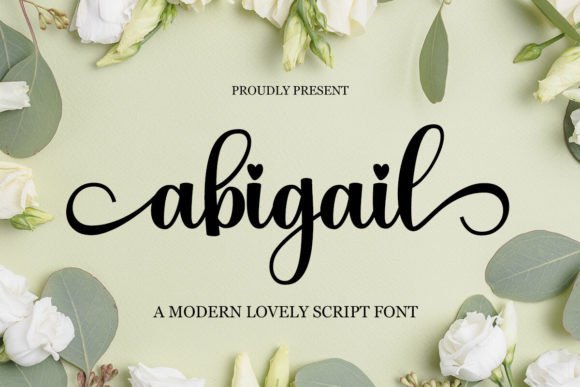
The Allure of Beautiful Handwriting
As a designer, have you ever found yourself searching for the perfect font to capture the essence of a brand or a special moment? Perhaps it was for a wedding invitation, a logo, or a book cover – whatever the project, the right font can make all the difference. I recall a particular instance where I stumbled upon a font that instantly sparked inspiration. It was a beautiful script font that seemed to dance across the page, with elegant swashes and a touch of whimsy.
That font was Abigail Script Font, a modern calligraphy design that has become a staple in many designers’ arsenals. With its casual yet sophisticated vibe, it’s perfect for a wide range of applications, from logos and product packaging to wedding invitations and branding. The Abigail Script Font is encoded with PUA Unicode, making it easy to access and use all its additional characters without requiring special software.
Abigail Script Font Key Features
- Font Family: Abigail Script, a beautiful and elegant script font
- Unique Characteristics: Features a flowing, handwritten feel with subtle connections between letters
Abigail Script Font Review
I’ve had the chance to work with Abigail Script Font, and I must say, it’s a beautiful addition to any design project. ✨ The flowing connections between letters make it perfect for creating a sense of elegance and sophistication. ✨ The subtle flair at the ends of letters adds a touch of whimsy, perfect for projects that need a bit of personality.
One of the things I appreciate about Abigail Script Font is its versatility. ✨ It’s perfect for invitations, greeting cards, and other wedding-related materials. ✨ It’s also great for creating a sense of luxury and high-end feel, making it perfect for branding and advertising projects.
- ⚠️ Abigail Script Font may not be the best choice for projects that require a lot of text, as the letter spacing can become quite tight.
- ⚠️ The font may not be the most legible at small font sizes, so it’s best to use it at larger sizes or in combination with a more legible font.
Overall, I’m impressed with Abigail Script Font. It’s a beautiful, elegant font that’s perfect for projects that need a touch of sophistication. With its versatility and unique style, it’s definitely a great addition to any designer’s toolkit.
Tips for Getting the Most Out of Abigail Script Font
To get the most out of Abigail Script Font, try the following:
- Use it for titles, headings, and other emphasis text.
- Pair it with other fonts for a unique and eye-catching design.
- Experiment with different font sizes and colors to create a visually appealing effect.
Alternatives to Abigail Script Font
Carolyna Pro is a modern script font with elegant, flowing lines. It is ideal for use in branding, packaging, and advertising materials where a touch of sophistication is needed. Compared to Abigail Script Font, Carolyna Pro has a more refined and polished look, making it suitable for high-end designs.
Alex Brush is a beautiful, handwritten font with a warm and inviting feel. It is perfect for use in creative projects such as invitations, menus, and brochures where a personal touch is desired. Compared to Abigail Script Font, Alex Brush has a more relaxed and casual look, making it suitable for designs that require a friendly and approachable tone.
Great Vibes is a modern script font with a lively and energetic feel. It is ideal for use in designs that require a sense of excitement and dynamism, such as posters, flyers, and social media graphics. Compared to Abigail Script Font, Great Vibes has a more vibrant and playful look, making it suitable for designs that need to grab attention.
Q: What is the recommended font size for the Abigail Script Font?
The recommended font size for the Abigail Script Font varies depending on the application and desired effect. However, a general rule of thumb is to use font sizes between 12 and 24 points for body text, and 36 points or larger for headings and titles. This will help to maintain readability and visual balance in your design.